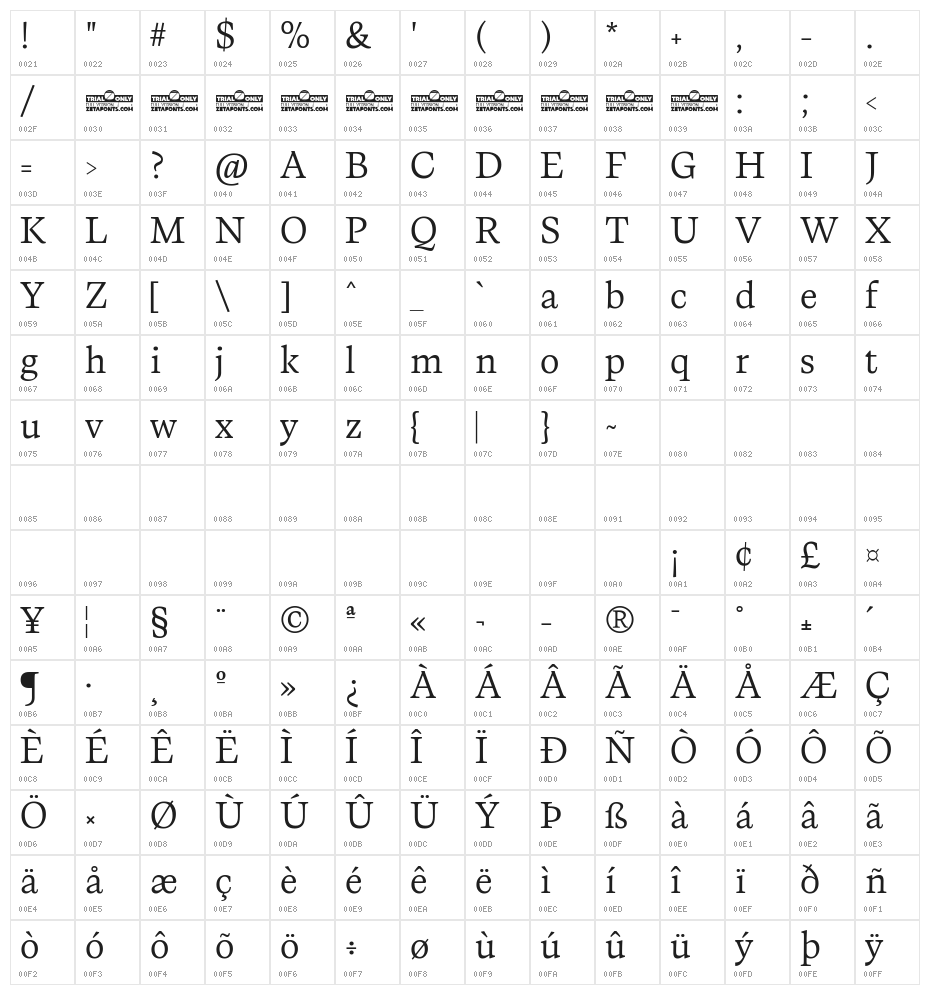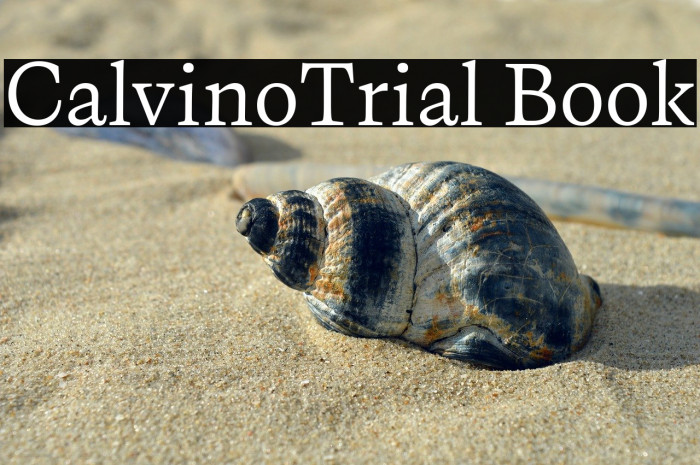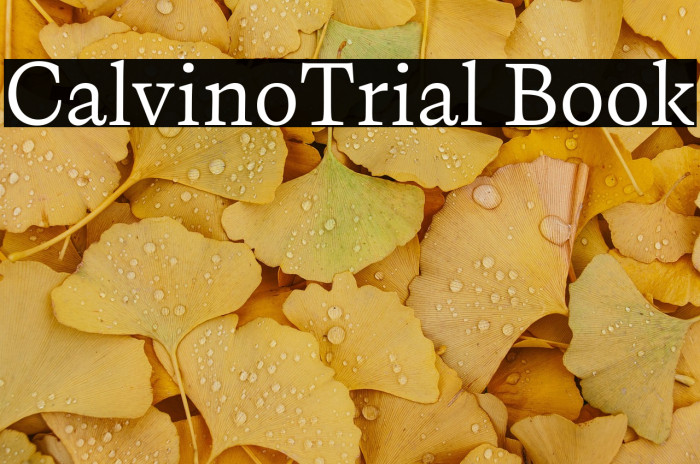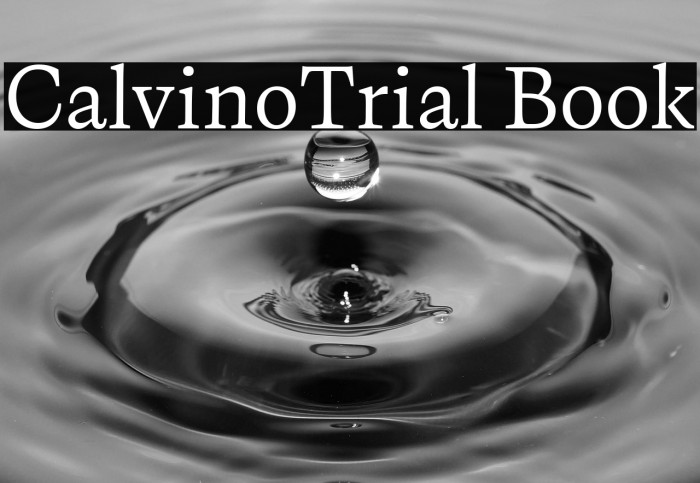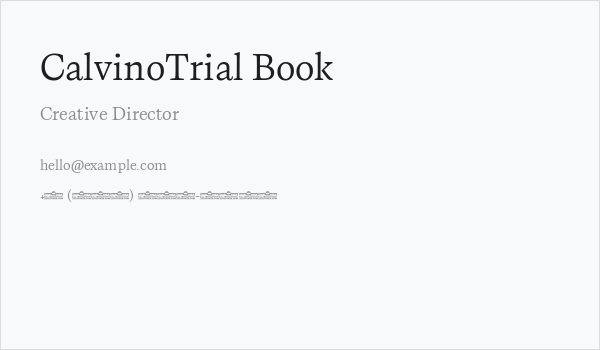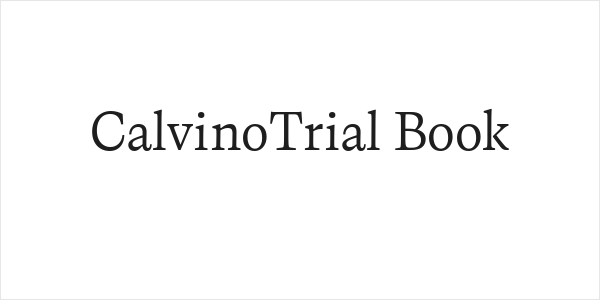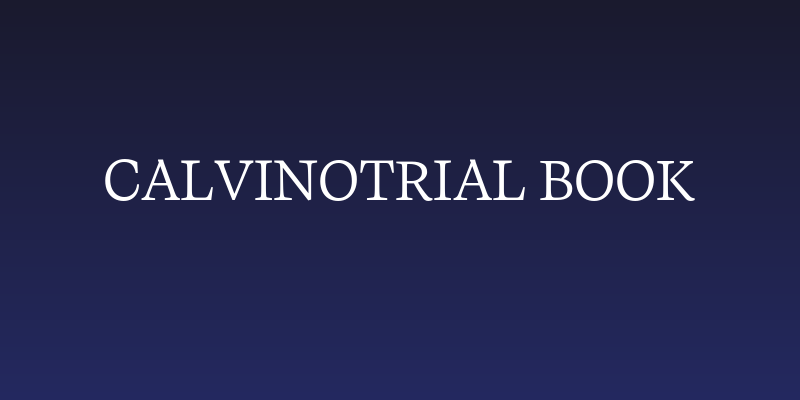
CalvinoTrial Book Font
CalvinoTrial Book Description
This font features a classic serif style with elegant and refined strokes. The uppercase letters are bold and commanding, while the lowercase letters maintain a graceful and readable form. The numerals are consistent with the overall design, offering a traditional appearance. Special characters are well-integrated, maintaining the font's cohesive look. The serifs are pronounced, providing a sense of formality and sophistication. This font is suitable for projects that require a timeless and authoritative aesthetic.
| Use Case | Headlines, Body text, Editorial design |
| Proposed Projects | Ideal for book covers, editorial design, formal invitations, and branding materials that require a classic and sophisticated look. |